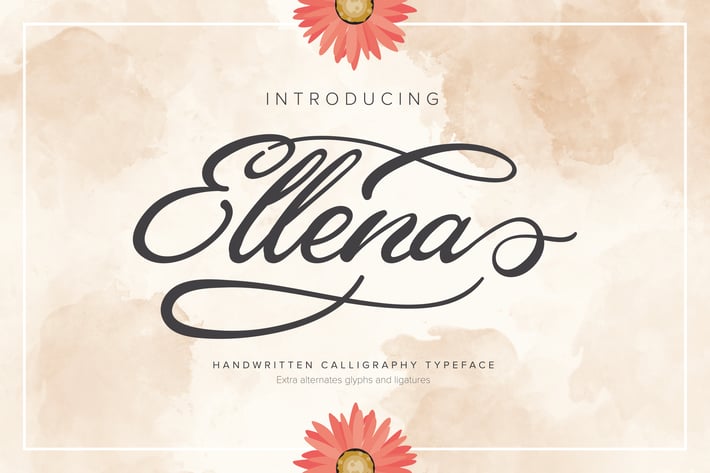
Ellena | Handwritten Calligraphy Typeface
Ellena | Handwritten Calligraphy Typeface with a calligraphy style, So beautiful on invitation like greeting cards, branding materials, business cards, quotes, posters, and more!